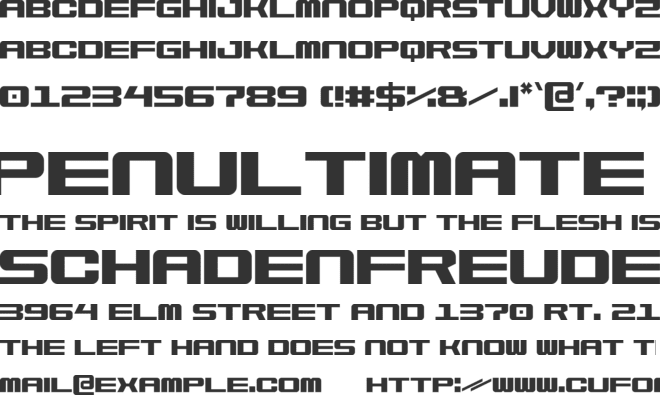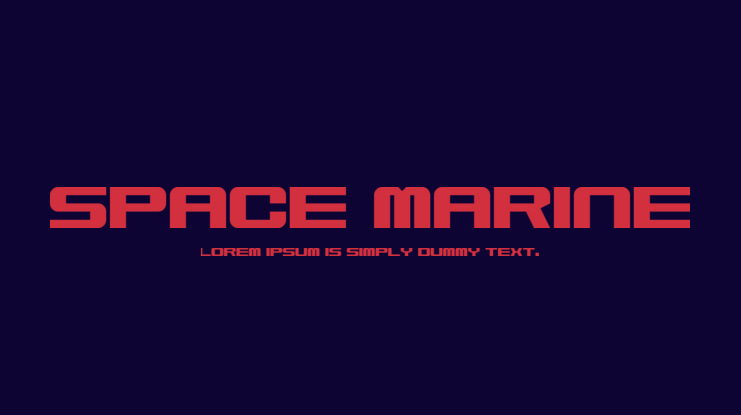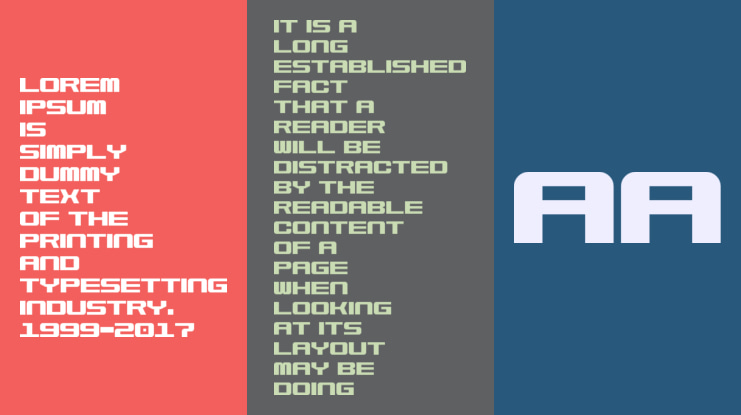
Space Marine Font
An all-uppercase font which I created for an author of Roleplaying Game modules, especially Warhammer 40K. Supports Danish, Dutch, English, Finnish, French, German, Hungarian, Icelandic, Italian, Norwegian, Portuguese, Spanish, and Swedish!